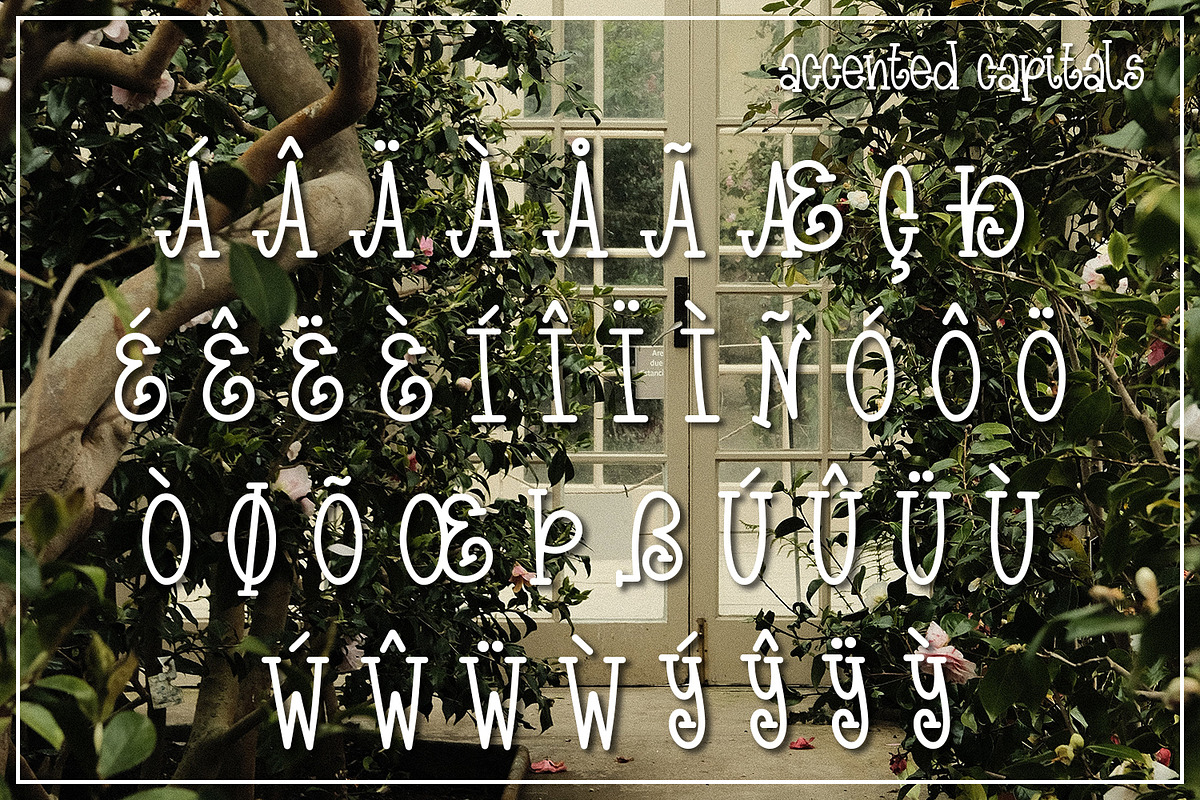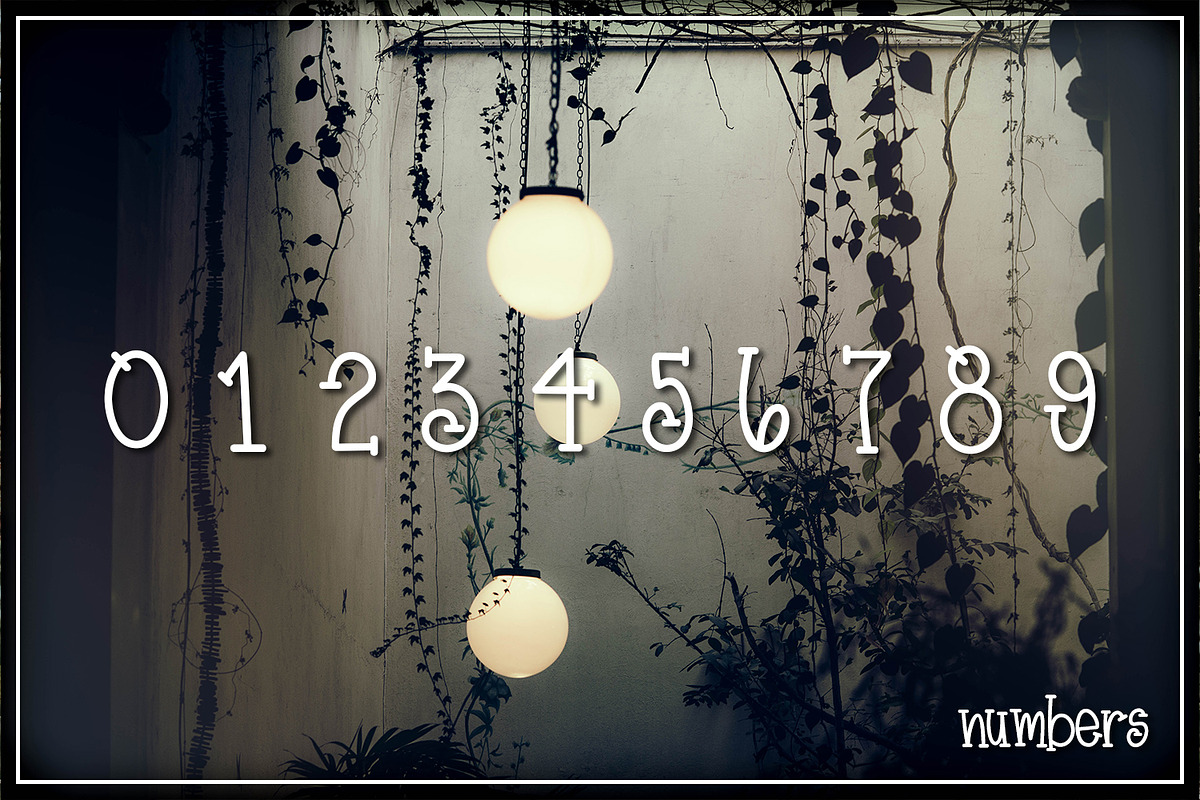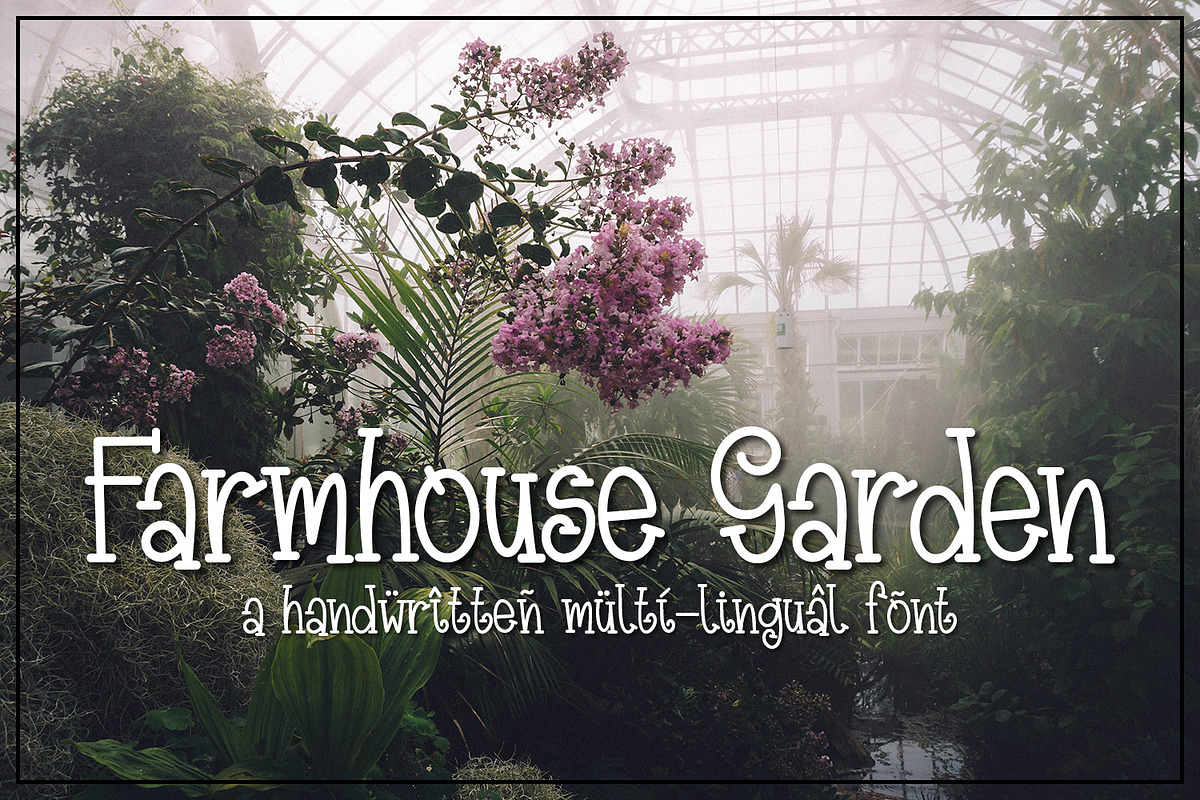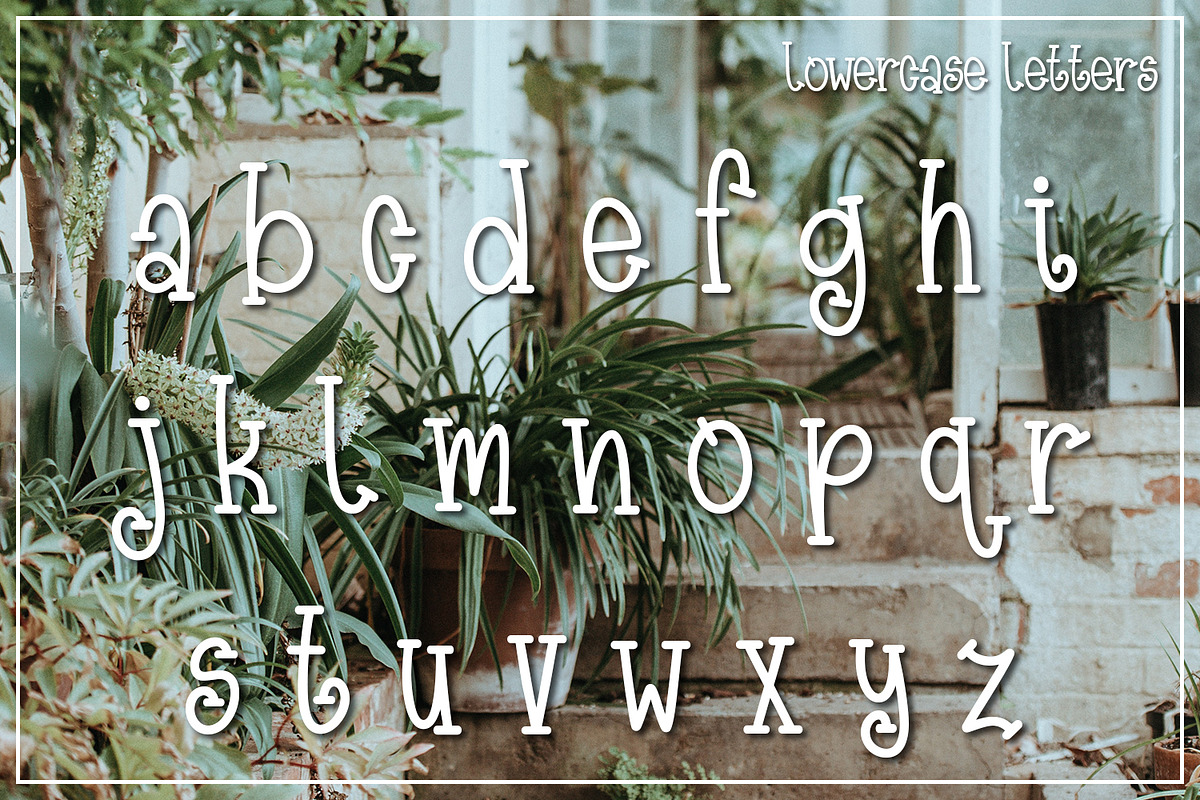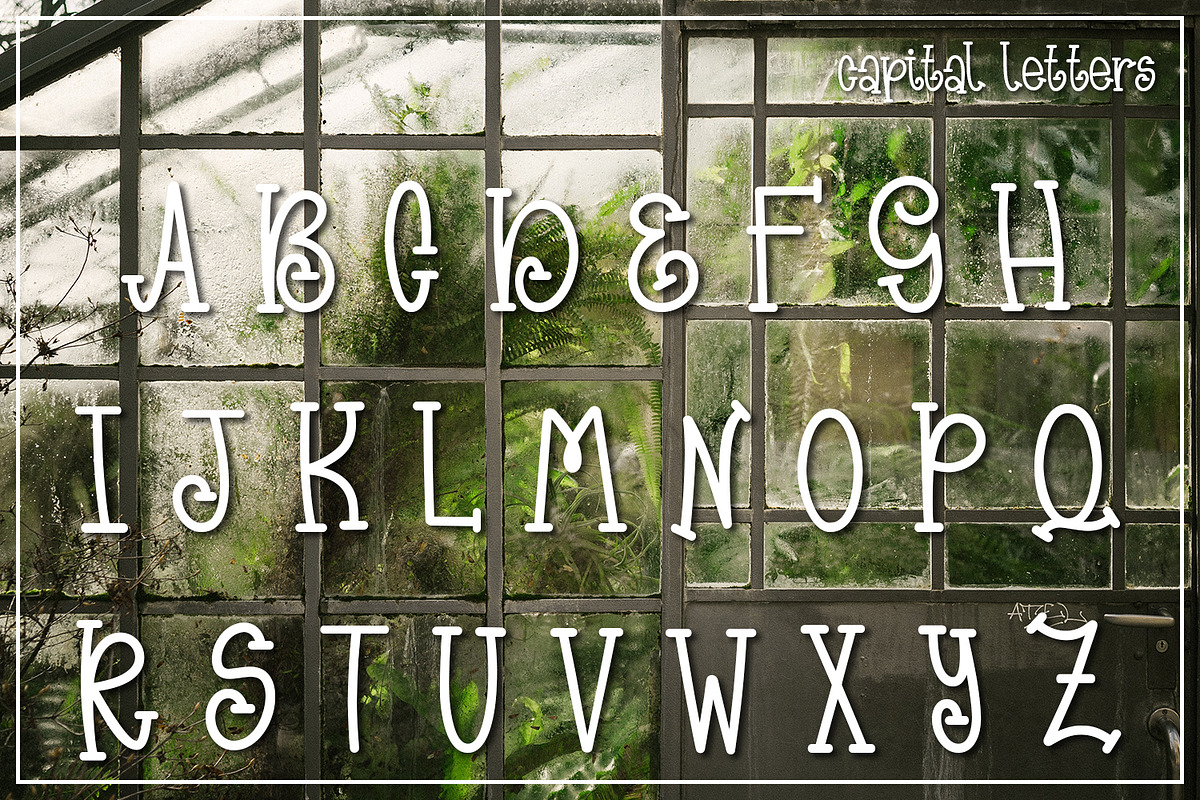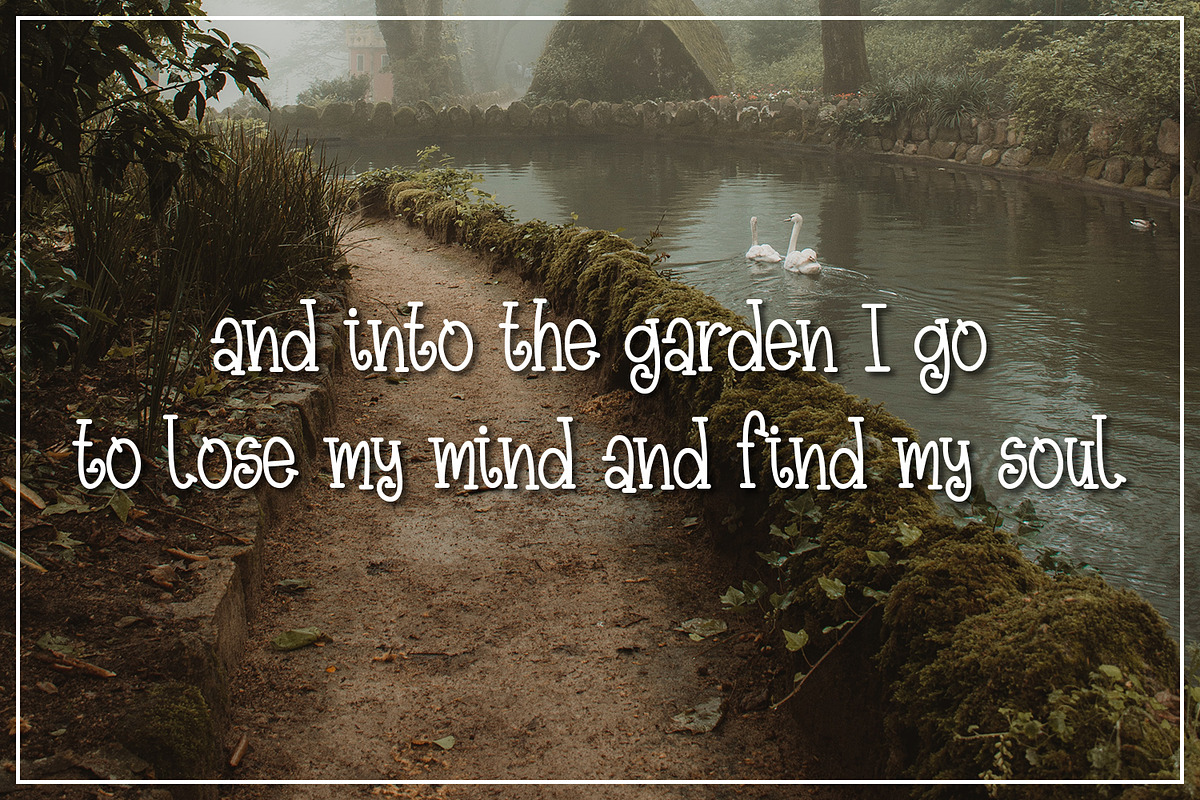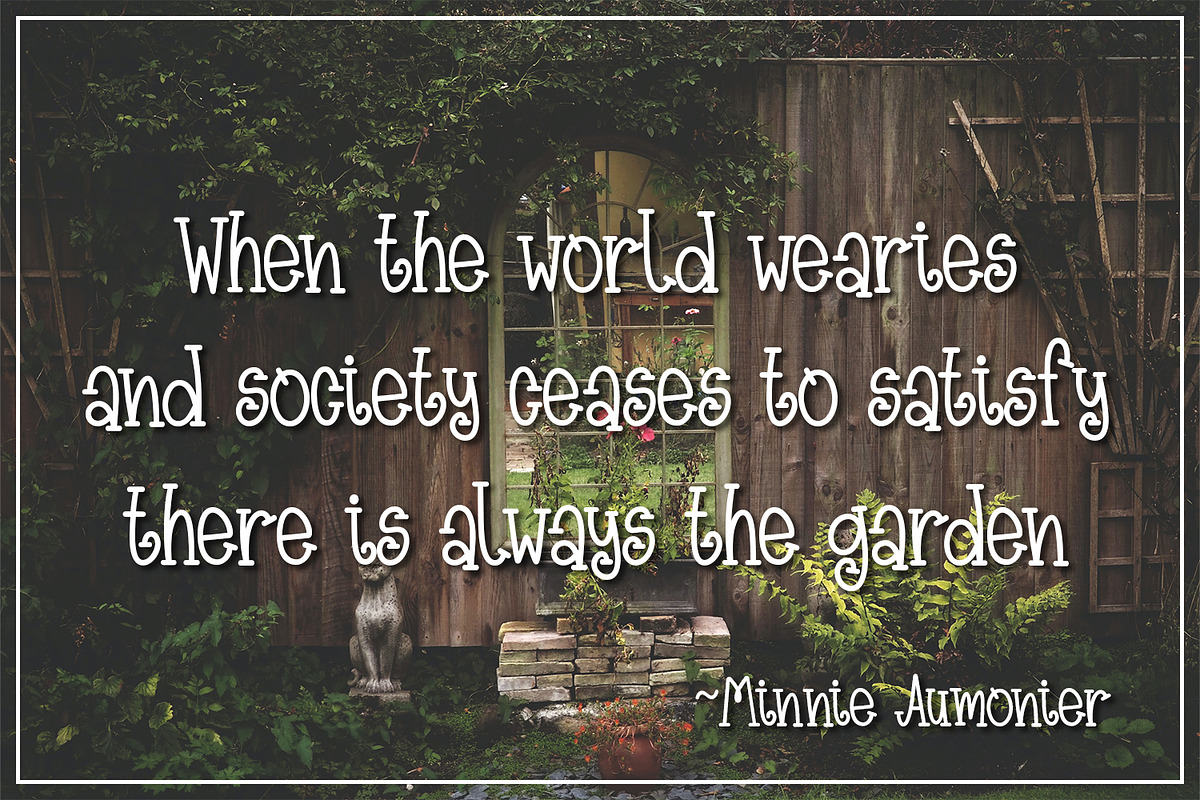
Farmhouse Garden
Introducing Farmhouse Garden, the delightful result of my joyful lettering and coding journey. Choosing the perfect name for this font was a delightful challenge, but when I first typed it out, I knew it encapsulated the essence of this typeface flawlessly.
Immerse yourself in the charming world of Farmhouse Garden, a captivating handwritten slab serif font. With a passion for fonts that boast elegant slabs and serifs, I poured my heart into creating this design. It embodies the rustic allure of a flourishing farmhouse garden, evoking a sense of warmth and authenticity.
This versatile font is a language enthusiast's dream, as it supports all Western European Languages and comes complete with diacritical marks. Whether you're designing for English, French, Spanish, or any other Western European language, Farmhouse Garden has you covered.
Experience the beauty and versatility of Farmhouse Garden as it adds a touch of timeless sophistication to your creative projects. Embrace the handwritten charm and versatile nature of this multi-lingual slab serif font, and watch your designs flourish.